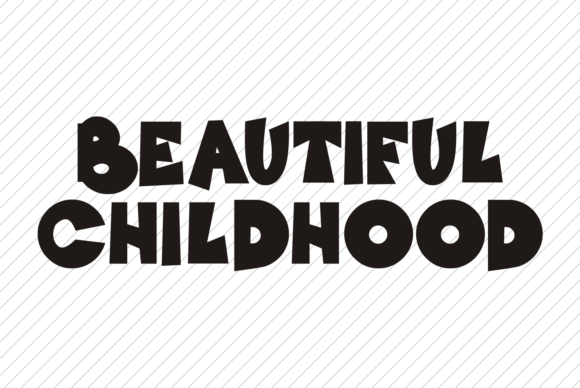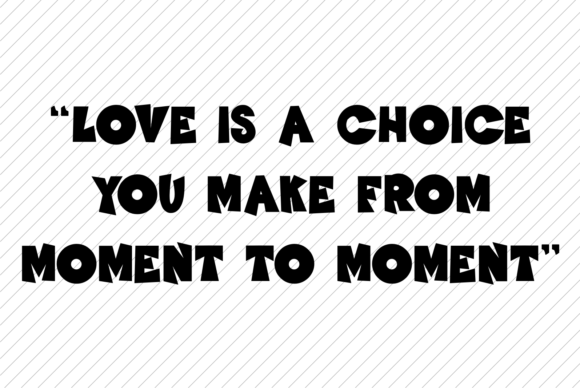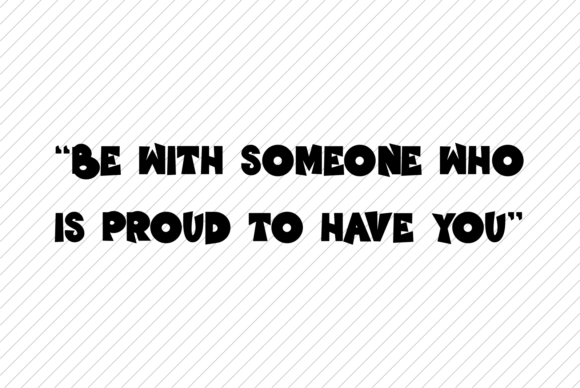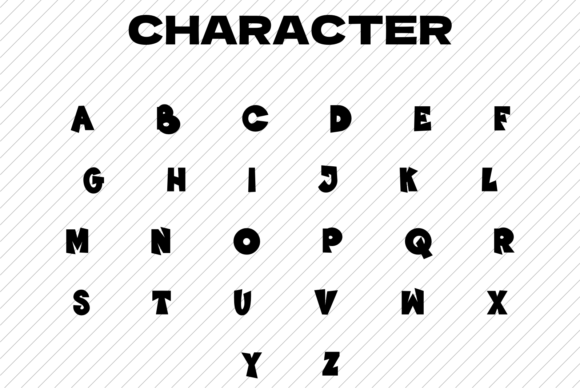
Introduction to Memory Kid Font
Have you ever been working on a creative project, pouring your heart and soul into it, and then, suddenly, everything clicks? You add a few key elements, and your design goes from bland to grand. That’s exactly what happened to us when we stumbled upon the Memory Kid Font.
Its thick-lettered and cool display style instantly elevates any design, making it more appealing and eye-catching. As a valuable design resource, Memory Kid Font is a must-have for any creative project. Whether you’re working on a logo, a poster, or a social media graphic, this font is sure to make your work stand out from the crowd.
Key Features of Memory Kid Font
- High-quality, hand-drawn design with a unique, playful style, perfect for creative projects.
- Designed to be highly legible and readable, even at small font sizes, making it perfect for use in body text or headings.
- Comes with a full character set, including uppercase and lowercase letters, numbers, and punctuation, making it a versatile design resource.
Honest Review: Memory Kid Font
I recently came across the Memory Kid Font, and I must say it’s a delightful addition to any design project. This free download is perfect for those looking to add a touch of whimsy and charm to their creative work.
What works well: ✨ The Memory Kid Font features a unique and playful style that’s reminiscent of a bygone era. The high-quality design is crisp and clear, making it perfect for use on both digital and print projects. The transparent background also makes it easy to incorporate into any design without worrying about a distracting background.
What doesn’t work so well: ⚠️ One limitation of the Memory Kid Font is that it’s only available in a limited number of weights and styles. While this may not be a deal-breaker for some designers, it may limit its use in certain projects that require more flexibility.
Overall, I’m impressed with the Memory Kid Font. It’s a great resource for designers looking to add a touch of personality to their work. Whether you’re working on a personal project or a commercial one, this font is sure to delight.
To get the most out of the Memory Kid Font, experiment with different font sizes and styles. Combine it with other design elements to create a unique look that reflects your brand or personal style.
The Memory Kid Font is perfect for a wide range of creative projects, including social media graphics, presentations, and documents. Its unique design and high-quality image make it a great addition to any design resource collection.